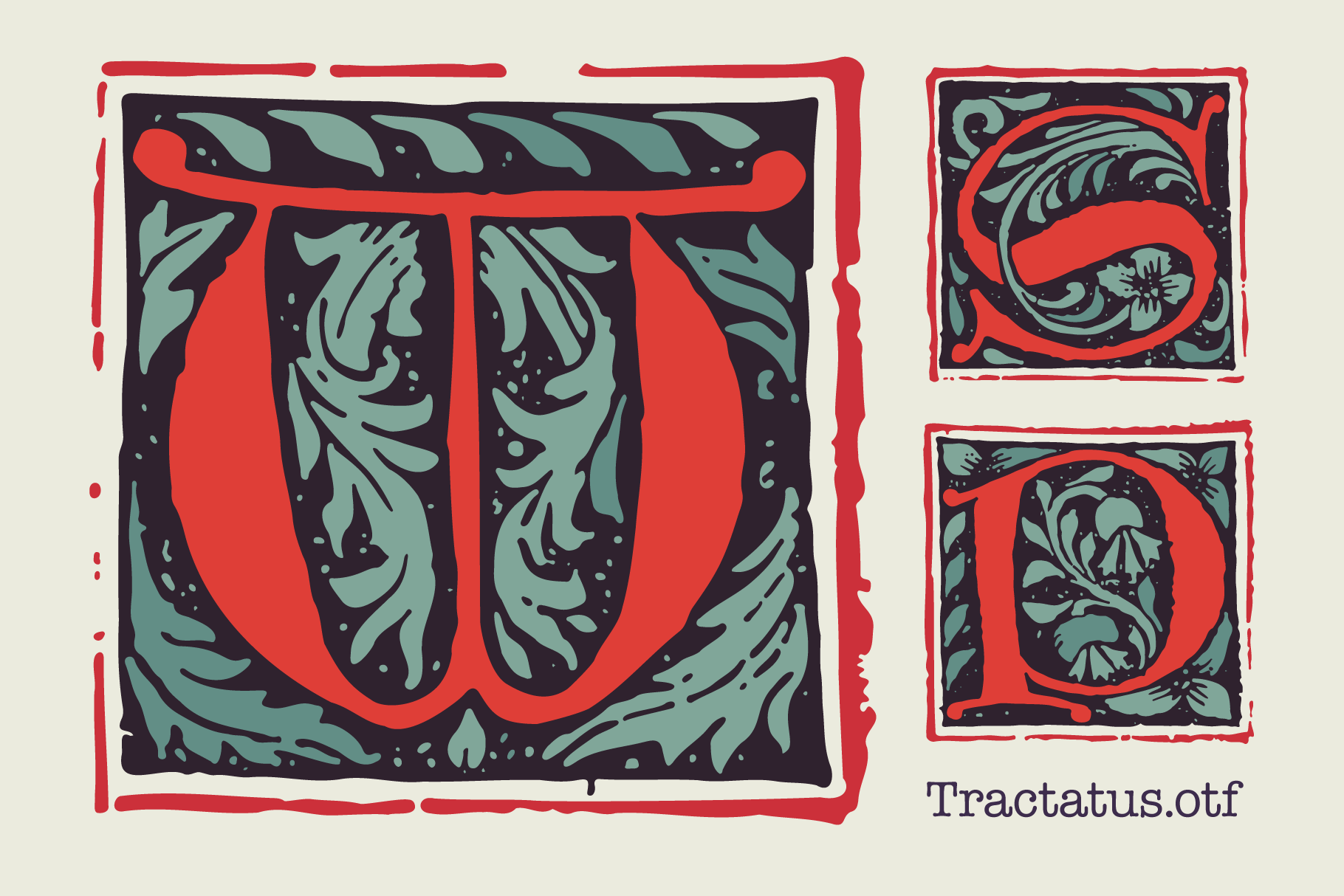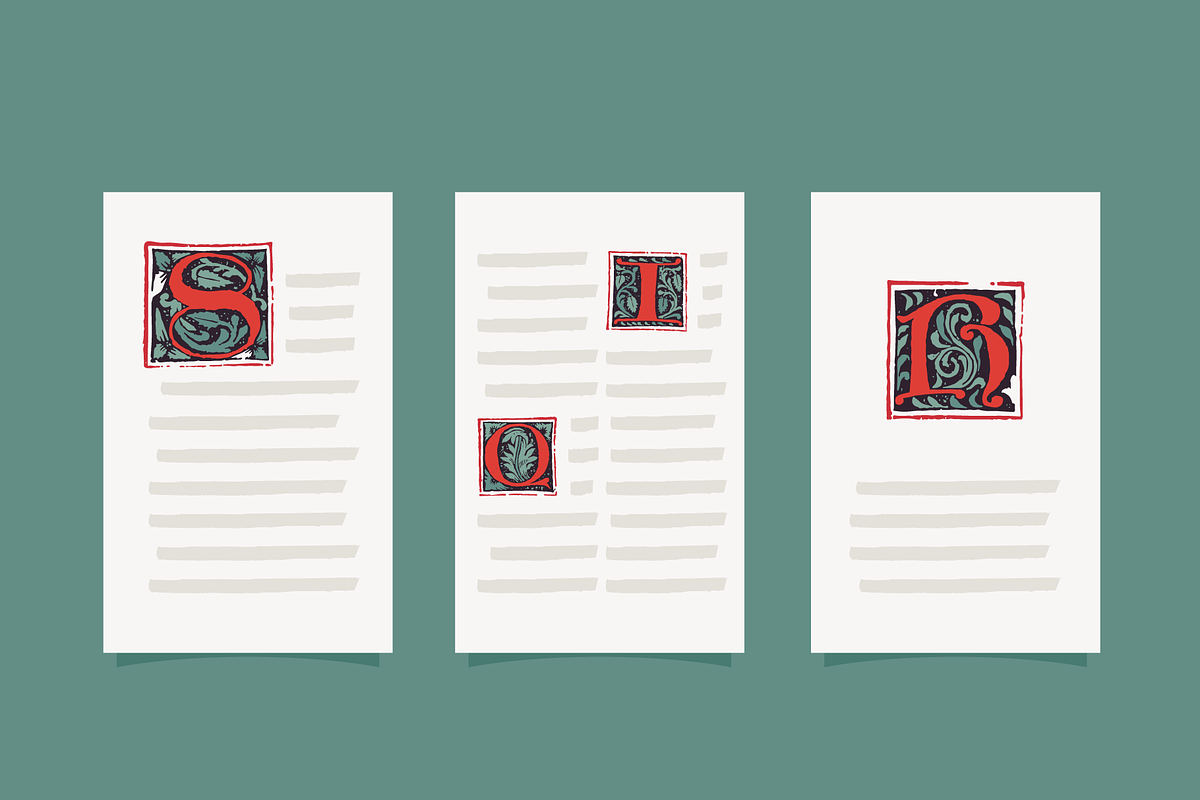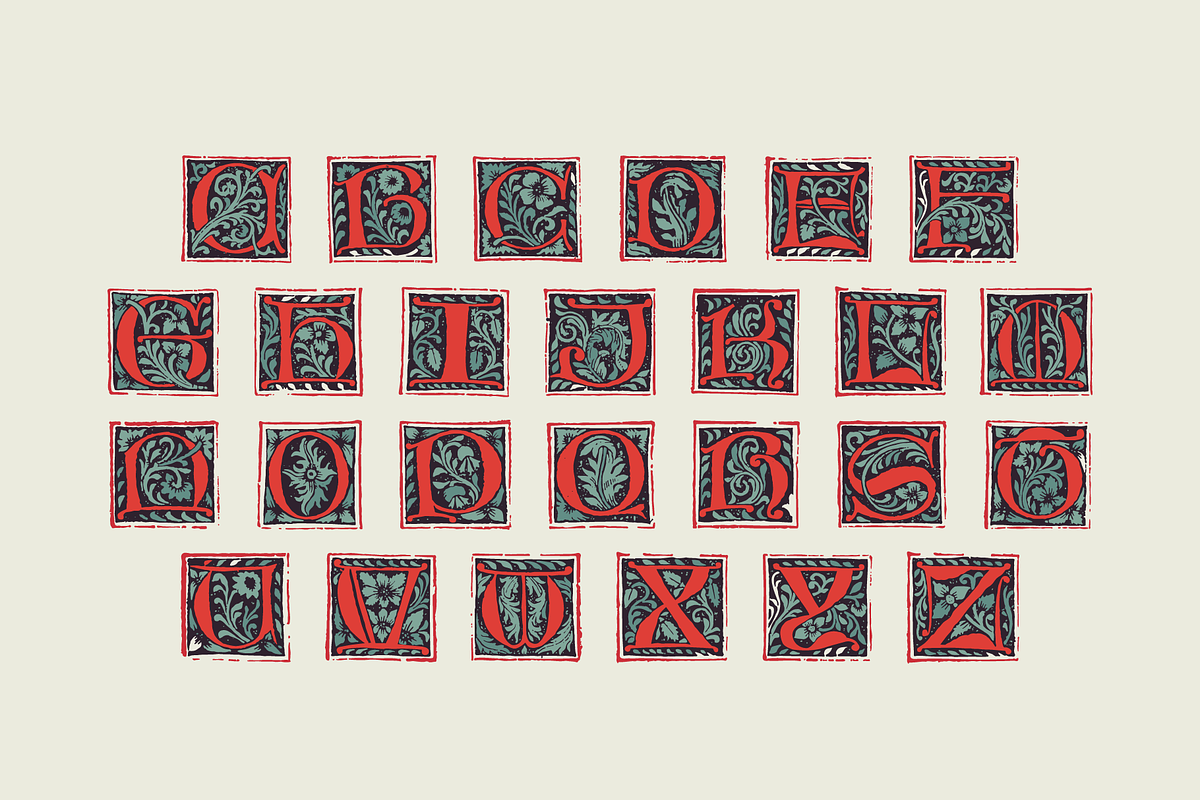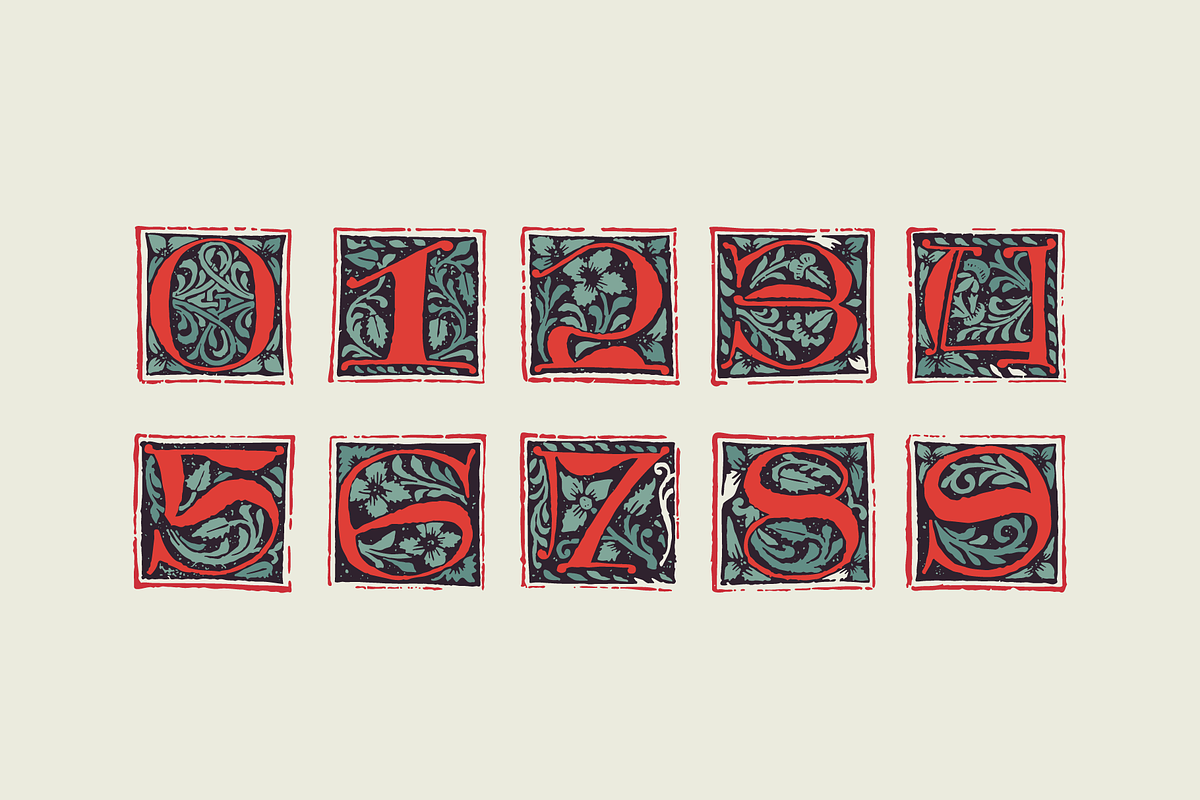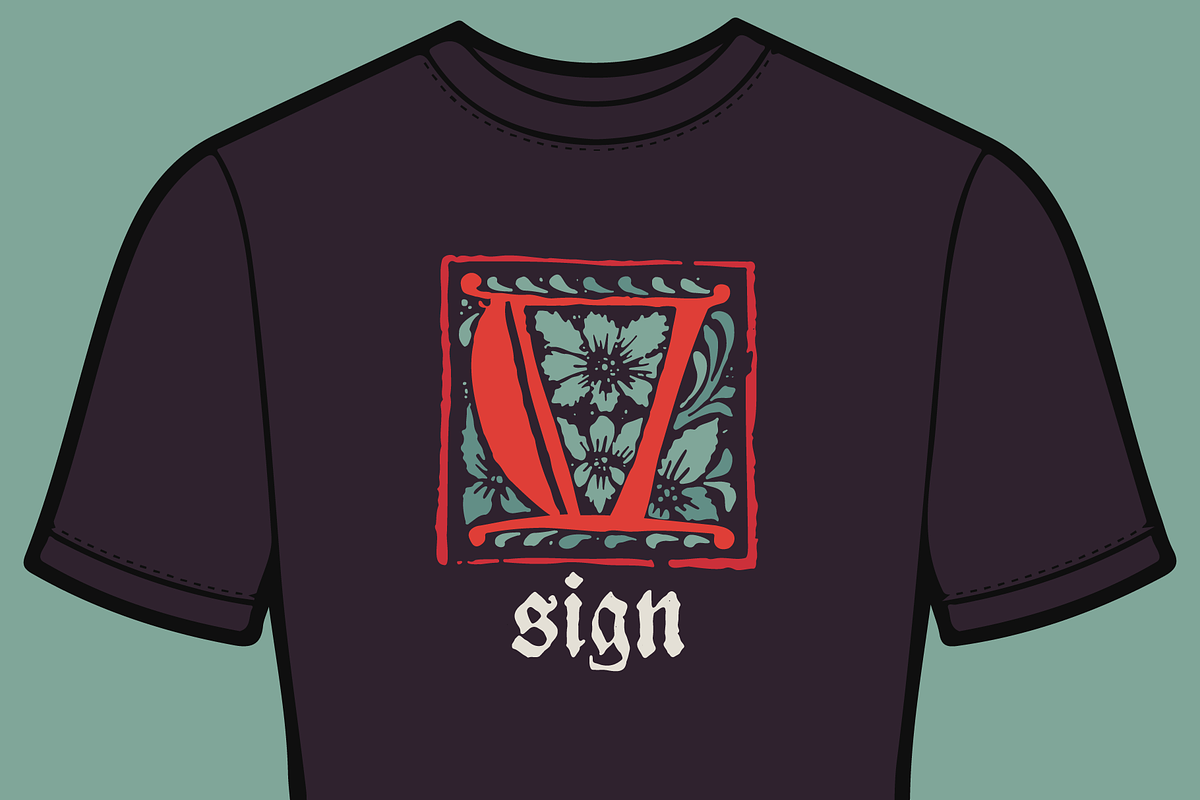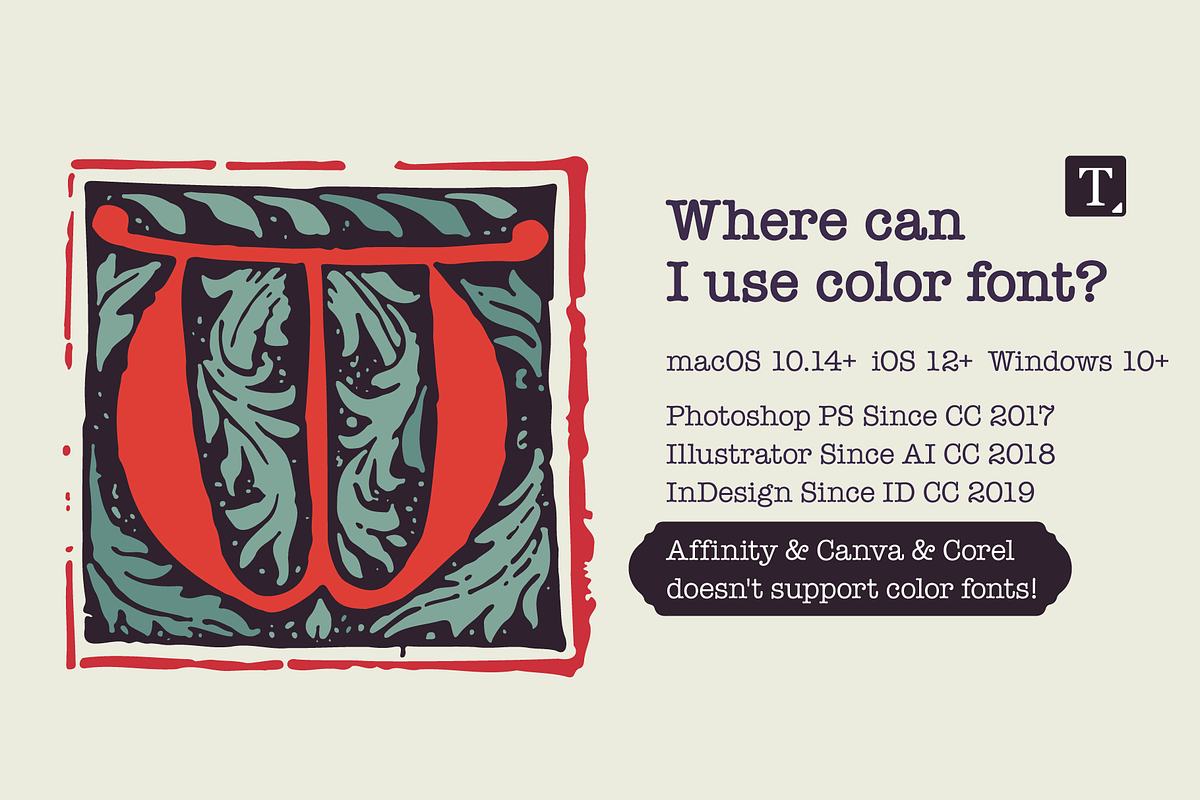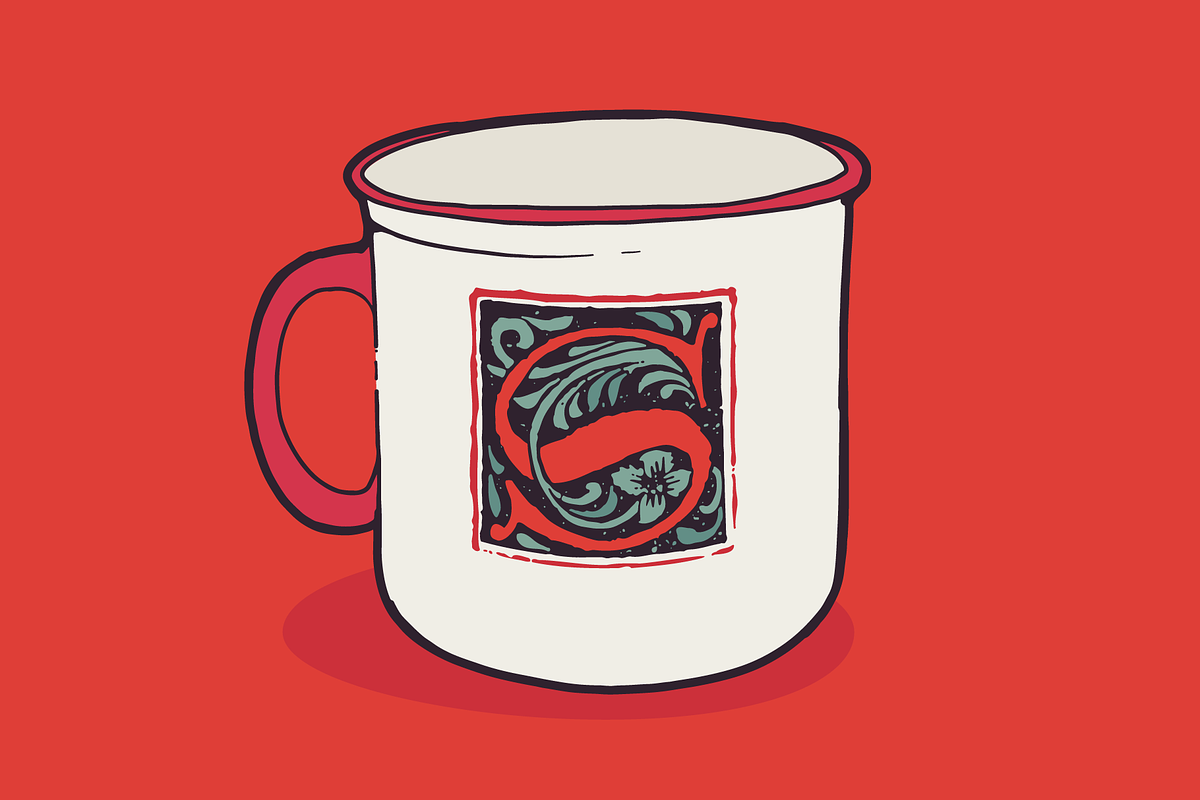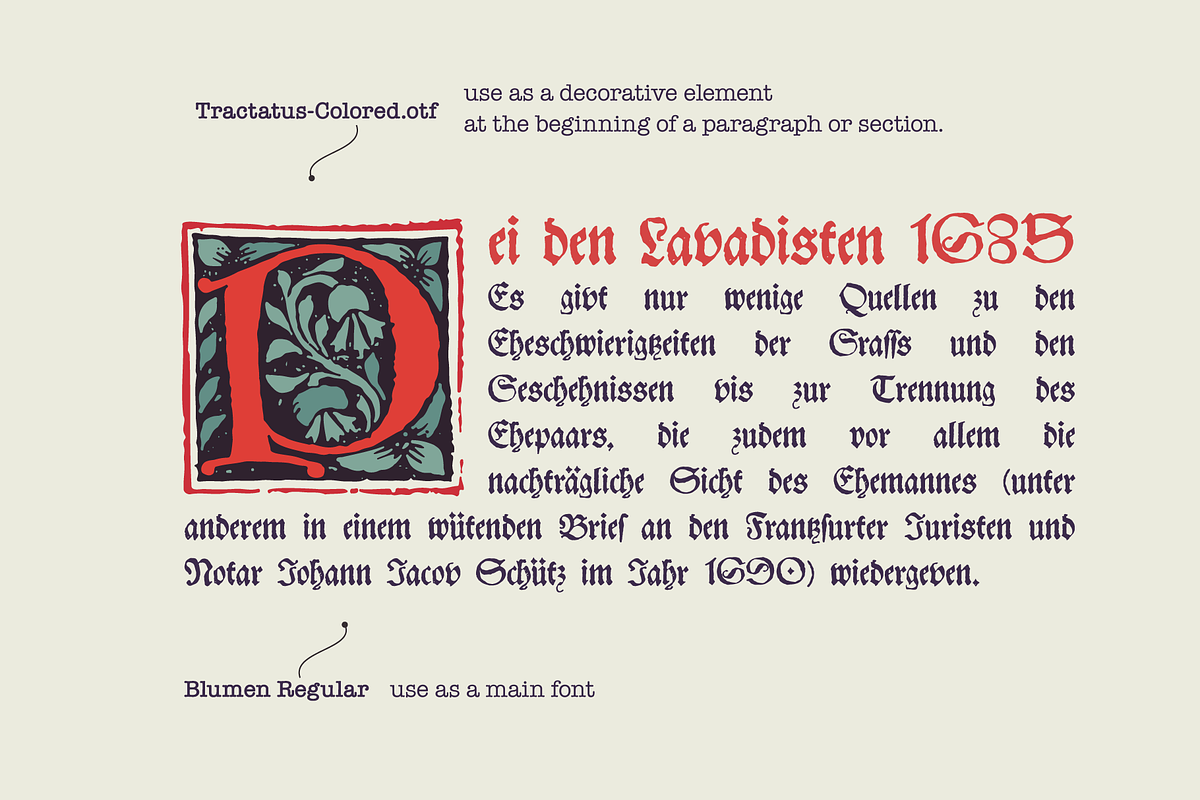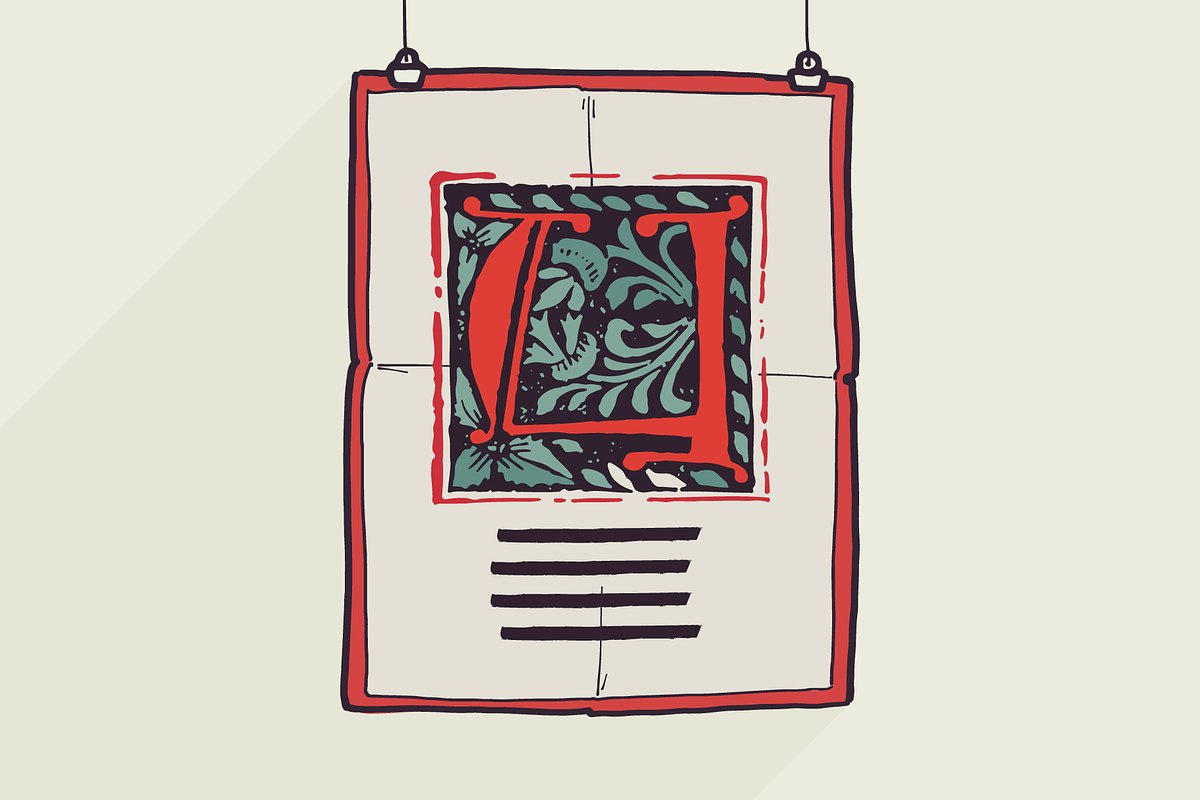
Tractatus Medieval initials font
These initials set I collected from “Tractatus sacerdotalis de sacramentis”, published in the city of Lugrun, printed by Arnaldum Guillermum de Brocario in 1503.
Tractatus font family has Regular and Colored styles. It's all you need to precisely imitate medieval style text. Use this font as a decorative element at the beginning of a paragraph or section, other part of the paragraph should be in regular black letter font.